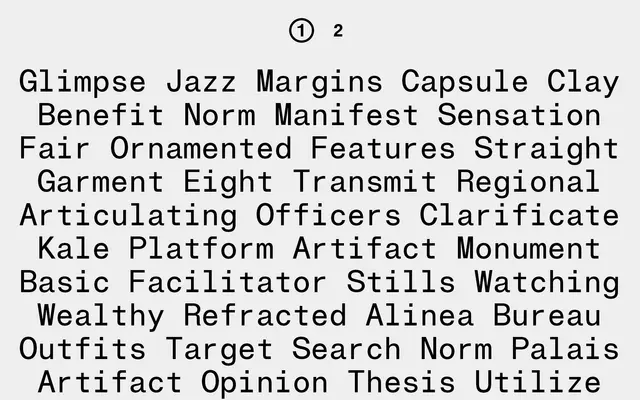
Reformat A
SM · Mark Niemeijer · 2024
A seven-font neo-grotesque from SM Foundry, developed as an original interpretation bridging 19th century grotesques and 20th century neo-grotesque styles.
Designed by Mark Niemeijer and released in February 2024, Reformat A is the more systematic of two sub-families that together make up the Reformat family. It prioritises efficiency and rational traits with a consistent rhythm, distinguishing itself from its sibling Reformat B, which favours organic curves and distinctive details. The family offers seven fonts and is positioned as a practical workhorse with considered letterforms rather than a direct historical revival.
SM classify Reformat A as Neo-Grotesk; it draws on 19th century grotesques but applies a systematic, rational approach with consistent rhythm, placing it firmly in the neo-grotesque tradition.